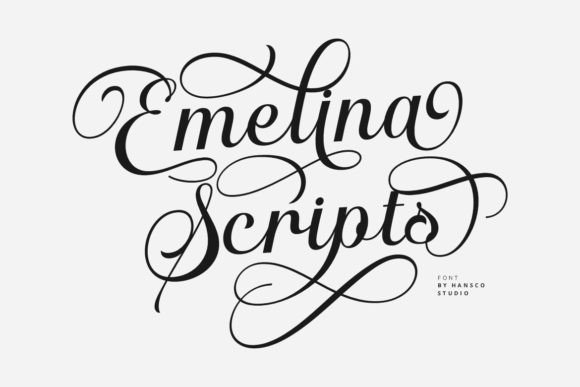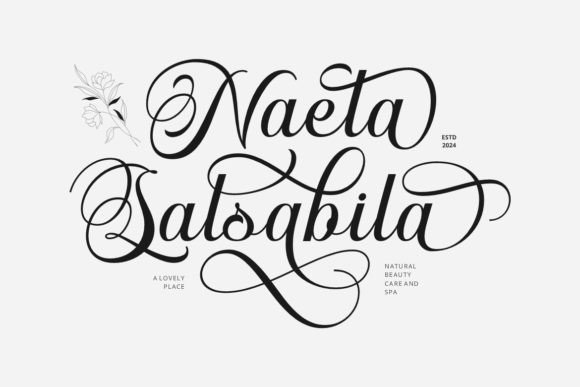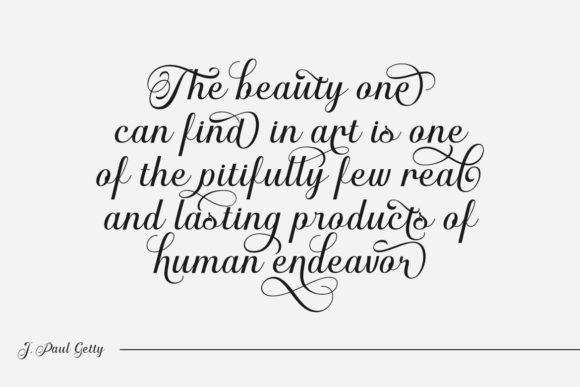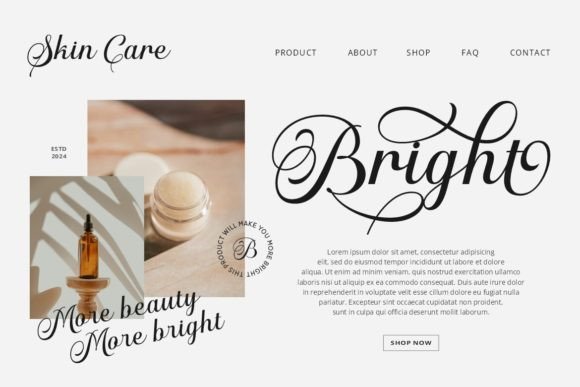
Emelina Scripts Font
About the Emelina Scripts Font
Explore the possibilities with Emelina Scripts Font, a font that offers both beauty and functionality. Emelina Scripts Font is a cute and modern handwriting font carefully created with a touch of elegance. Whether you’re looking for fonts for Instagram or for DIY projects, this font will turn any creative idea into a true piece of art! This font is also perfect for creating print templates like posters, branding, quotes, blog titles, fashion, invitations, greeting cards, business cards, clothing, stationery, or anything else.
Emelina Scripts Font Usage Examples
Emelina Scripts Font Example